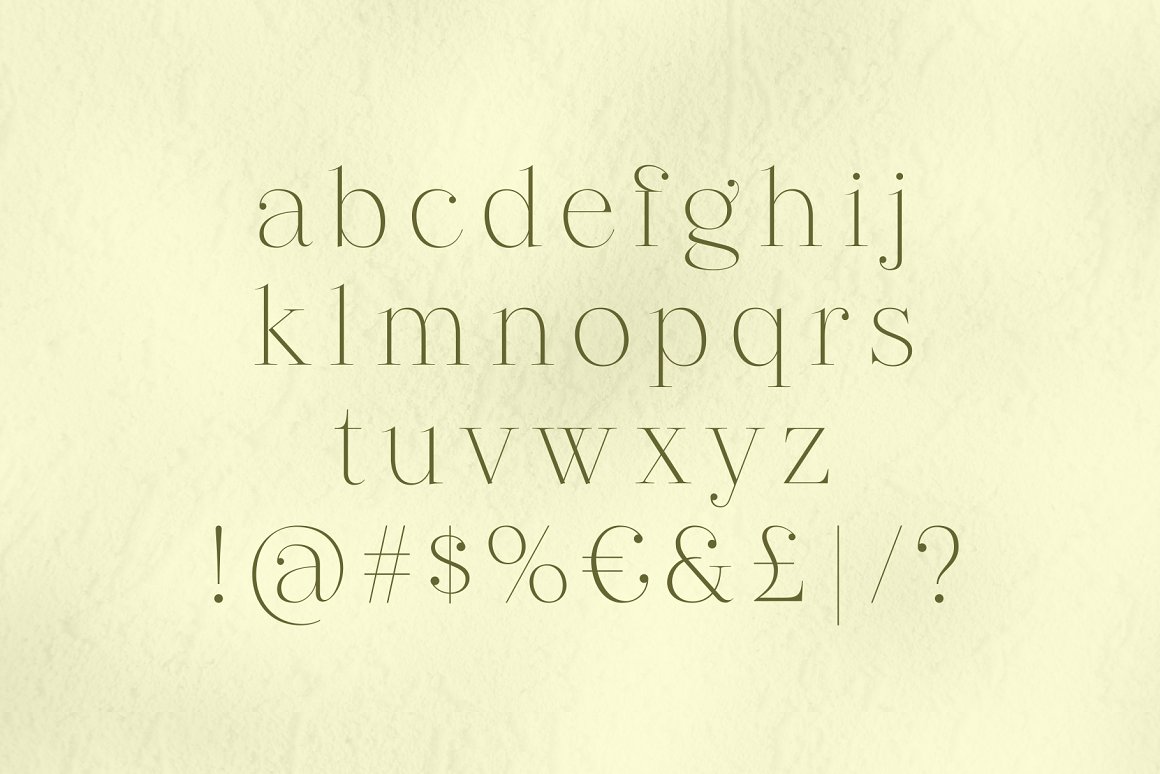
Revaux Serif Font is modern and elegant serif font designed with ball terminals. This font has 304 glyphs including alternates & ligatures and support 61 Latin languages.
Revaux Serif Font
Type: Serif